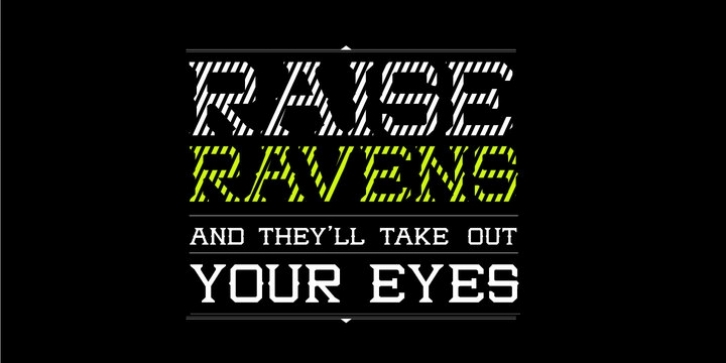
Green Raven is a typeface that speaks for itself, with personality and impact, wide lowercase and imposing uppercase. Generous counter forms make it highly readable in small sizes but always defending their strength, aggression and character.